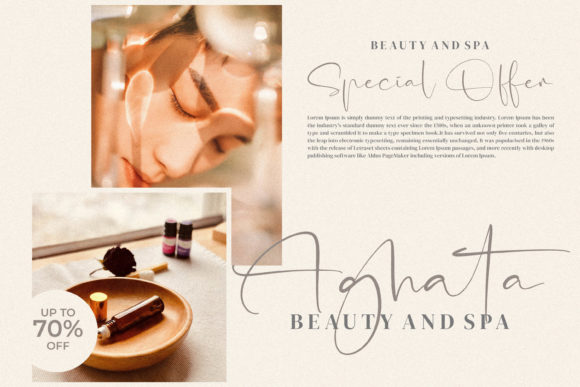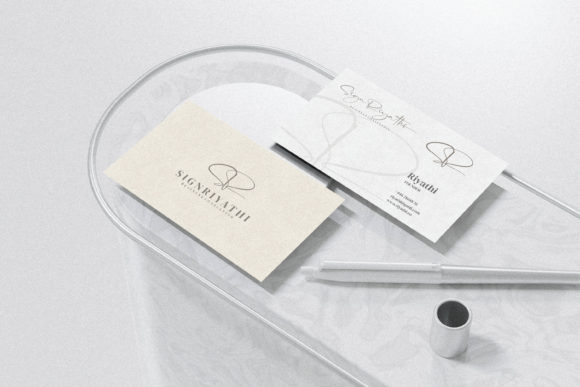
Sign Riyathi Font
db-ku.com - Script & Handwritten -- Sign Riyathi is a thin lettered and sweet calligraphy typeface with characters that dance along the baseline. It will add a luxury spark to any design project that you wish to create!